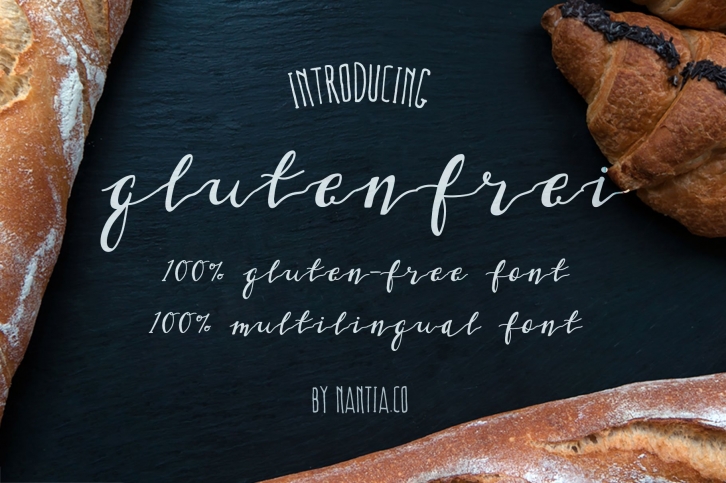
Gluten Frei Multilingual Script FONT Download
GlutenFrei Font is a 100% gluten-free, multilingual, script font, with greek and latin characters.
500 glyphs in
• Extended Latin,
• Greek,
• punctuation marks,
• diacritics
• numbers and
• 16 ligatures
GlutenFrei Font supports the following languages:
Albanian, Basque, Bosnian, Breton, Catalan, Chamorro, Chichewa_nyanja, Croatian, Danish, Dutch, English, Estonian, Finnish, French, Frisian, Galician, Greek, Hungarian, Italian, Lithuanian, Malagasy, Maltese, Norwegian, Polish, Portuguese, Serbian, Slovenian, Spanish, Swedish, Turkish, Welsh